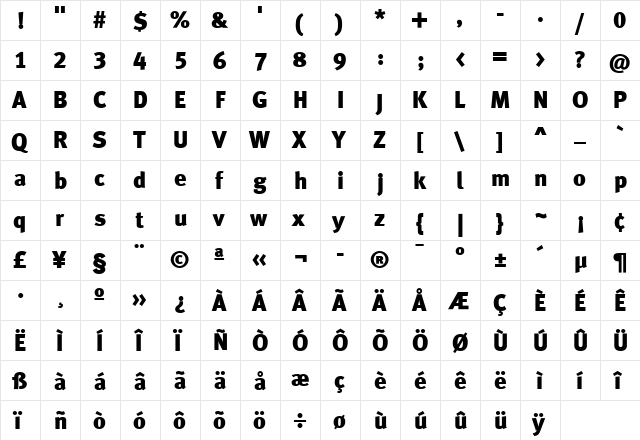
MetaBlackTurkLF Roman Font Preview
MetaBlackTurkLF Roman
MetaBlackTurkLF Roman Font Details
Design Context for MetaBlackTurkLF Typeface
MetaBlackTurkLF is a composed and adaptable typeface that performs quietly and consistently across a wide range of design contexts.